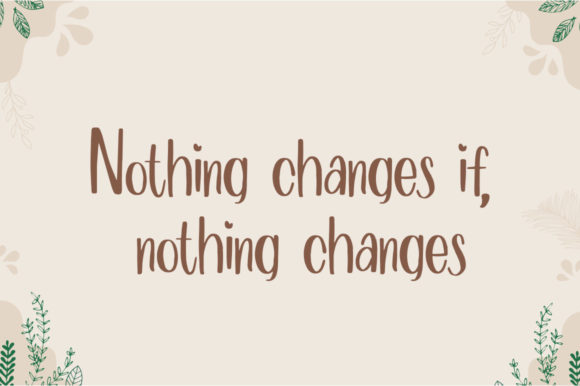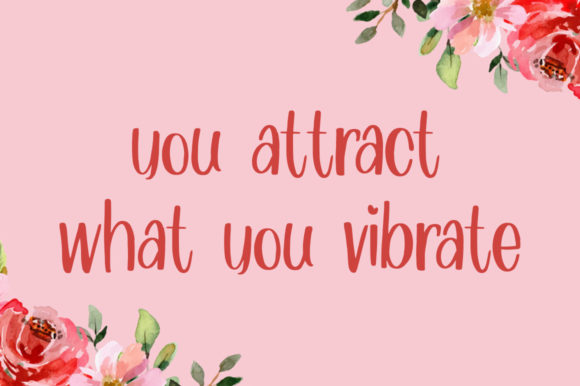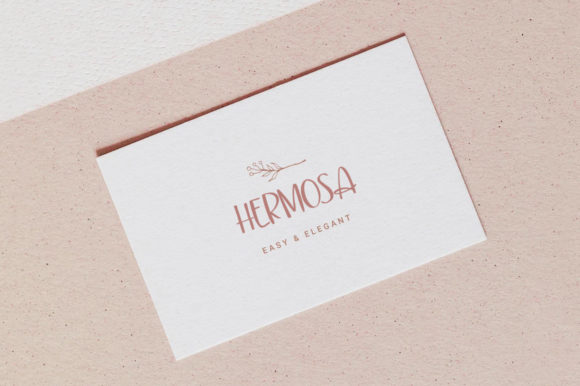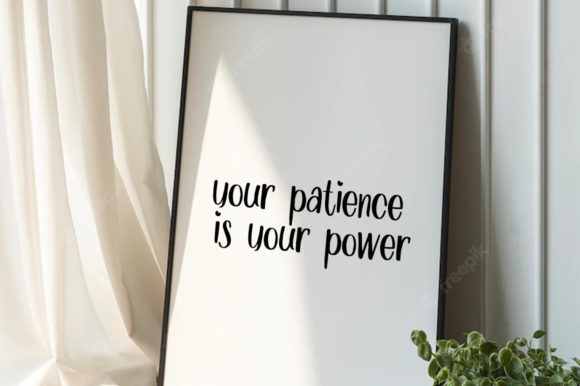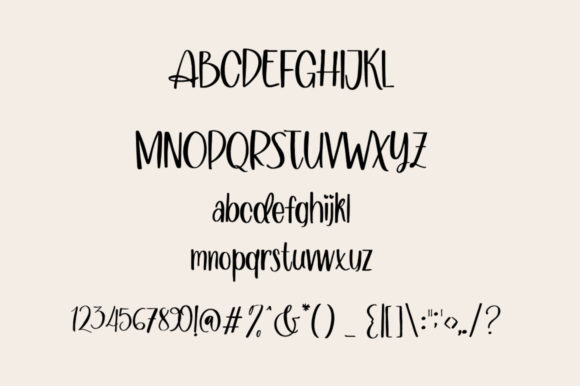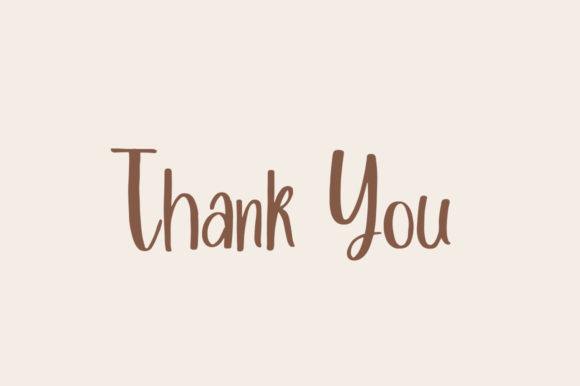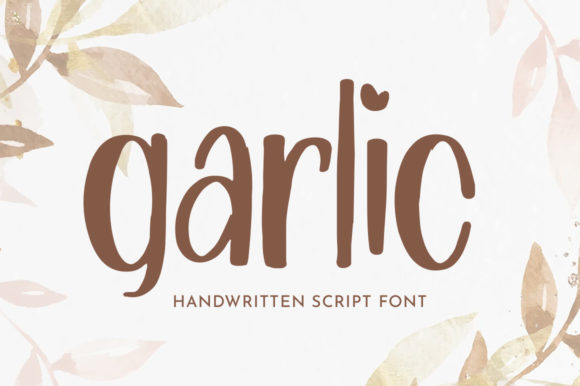
Introducing Garlic Font: The Cute and Versatile Display Font
Are you tired of using the same old fonts in your designs? Look no further than Garlic Font, a charming and unique display font that’s sure to elevate your creations. With its thin-lettered and paint-brushed style, Garlic Font is the perfect addition to any designer’s font library.
What is Garlic Font?
Garlic Font is a carefully crafted display font that’s designed to add a touch of personality to your designs. Its thin letters and paint-brushed texture give it a distinctive look that’s both cute and sophisticated. Whether you’re working on a logo, a poster, or a digital project, Garlic Font is sure to make your design stand out.
Key Features of Garlic Font
- Thin-lettered design: Garlic Font features delicate, thin letters that are perfect for creating elegant and refined designs.
- Paint-brushed texture: The font’s paint-brushed texture adds a touch of whimsy and playfulness to your designs.
- Versatile: Garlic Font can be used on a wide range of projects, from logos and posters to digital graphics and crafts.
- Cute and charming: The font’s unique design makes it perfect for creating designs that are both fun and sophisticated.
Why Designers and Crafters Love Garlic Font
Garlic Font has quickly become a favorite among designers and crafters, and for good reason. Its unique design and versatility make it an incredibly valuable asset for anyone who works with fonts. Here are just a few reasons why designers and crafters love Garlic Font:
- Easily elevates designs: Garlic Font has the power to instantly elevate your designs, making them look more refined and sophisticated.
- Adds personality: The font’s unique design allows you to add a touch of personality to your designs, making them more engaging and memorable.
- Perfect for branding: Garlic Font is a great choice for branding projects, as it can help create a unique and recognizable identity for your clients or business.
- Great for crafts: Whether you’re working on a DIY project or creating handmade crafts, Garlic Font is a great choice for adding a personal touch.
How to Use Garlic Font in Your Designs
Garlic Font is incredibly easy to use, and can be incorporated into a wide range of designs. Here are a few ideas to get you started:
- Logos and branding: Use Garlic Font to create a unique and recognizable logo for your business or client.
- Posters and flyers: Add a touch of personality to your posters and flyers with Garlic Font.
- Digital graphics: Use Garlic Font to create eye-catching digital graphics, such as social media posts and blog headers.
- Crafts and DIY projects: Add a personal touch to your handmade crafts and DIY projects with Garlic Font.
Garlic Font is a versatile and charming display font that’s sure to become a staple in your font library. Its unique design and paint-brushed texture make it perfect for adding a touch of personality to your designs, while its thin-lettered style ensures that your text remains elegant and refined. Whether you’re a designer, crafter, or DIY enthusiast, Garlic Font is an incredible asset that’s sure to elevate your creations.